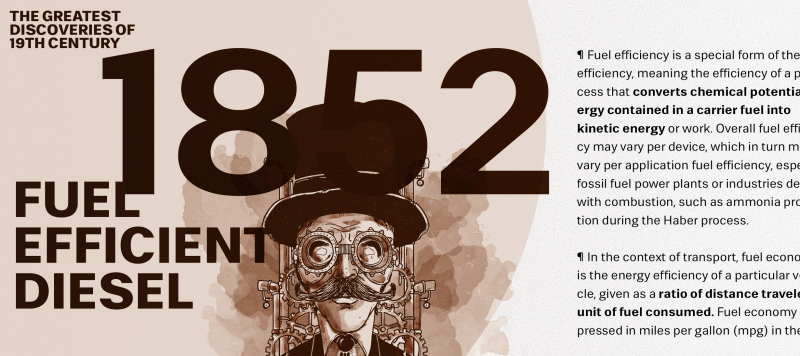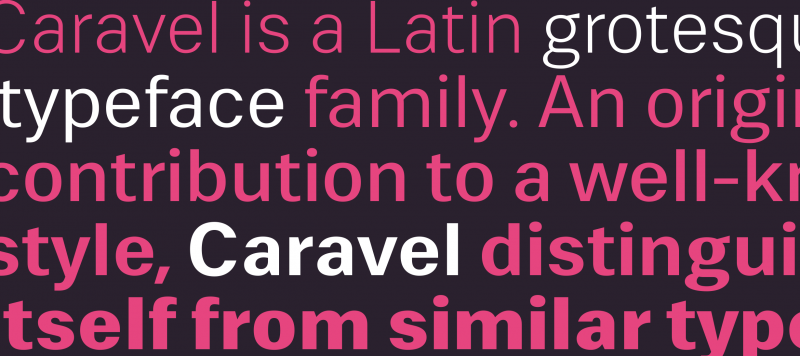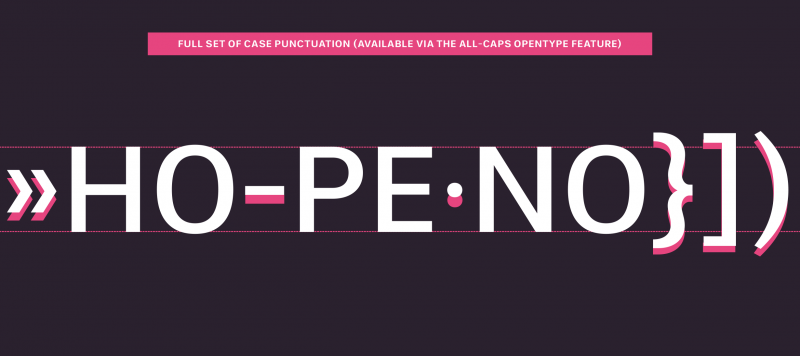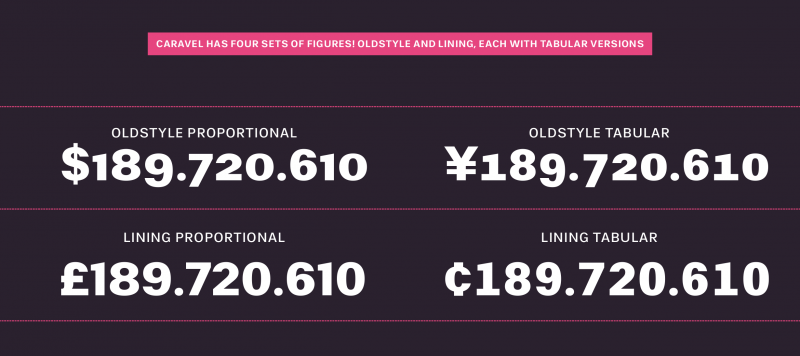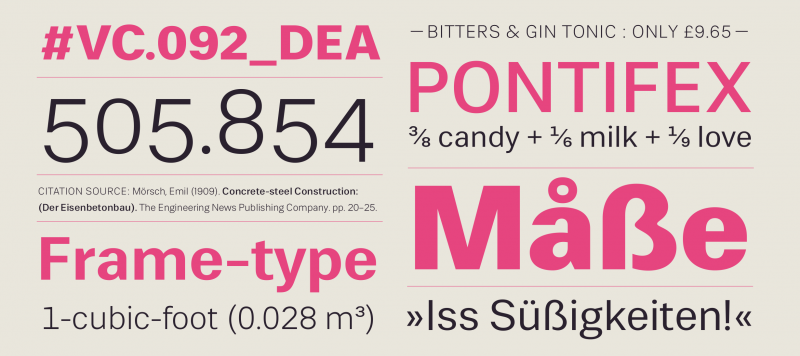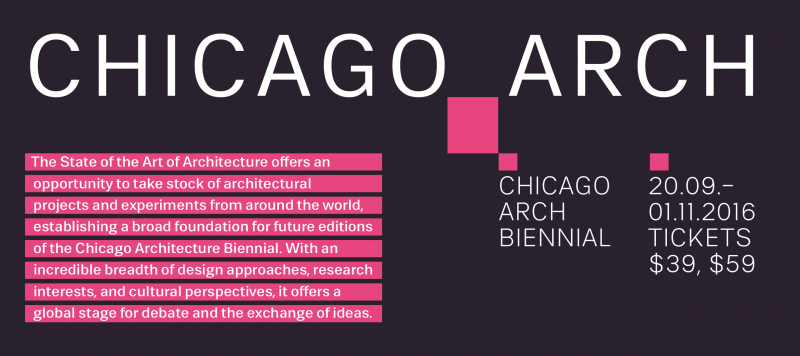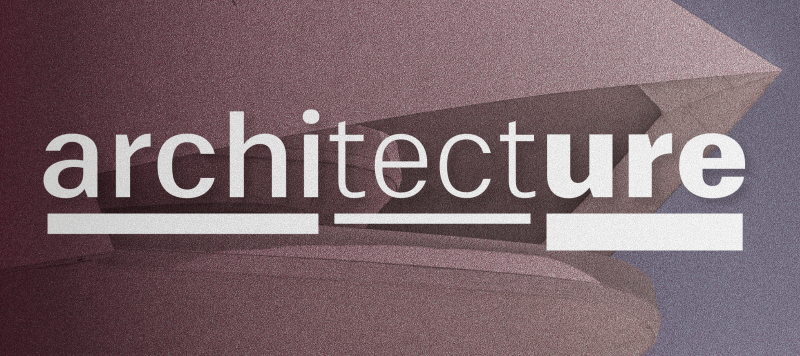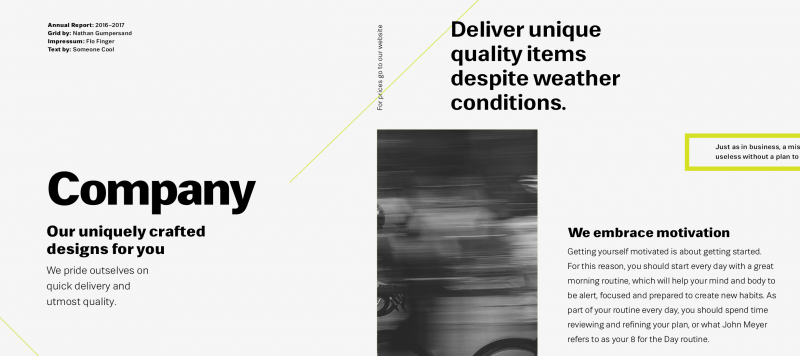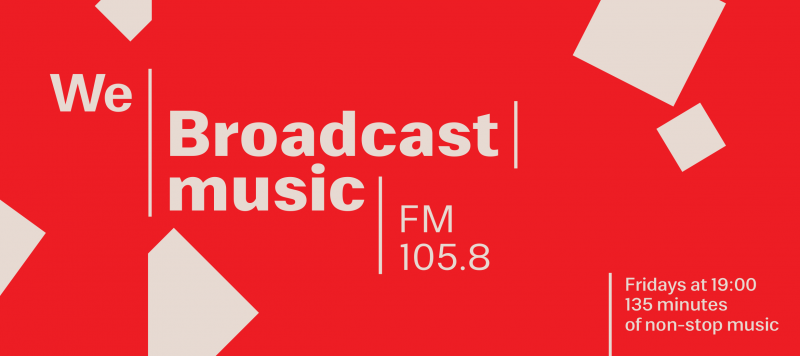
Caravel is a Latin grotesk sans typeface family. An original contribution to a well-known style, Caravel distinguishes itself from similar typefaces by adding in extra character where it can; several lowercase letters and non-alphabetic glyphs are livelier than average. The typeface’s design is both space-saving and friendly – everything an international audience requires, including many accents, multiple currency symbols, optional old-style figures, and five separate weights.
Family Name Caravel
Designer(s) Jonny Pinhorn